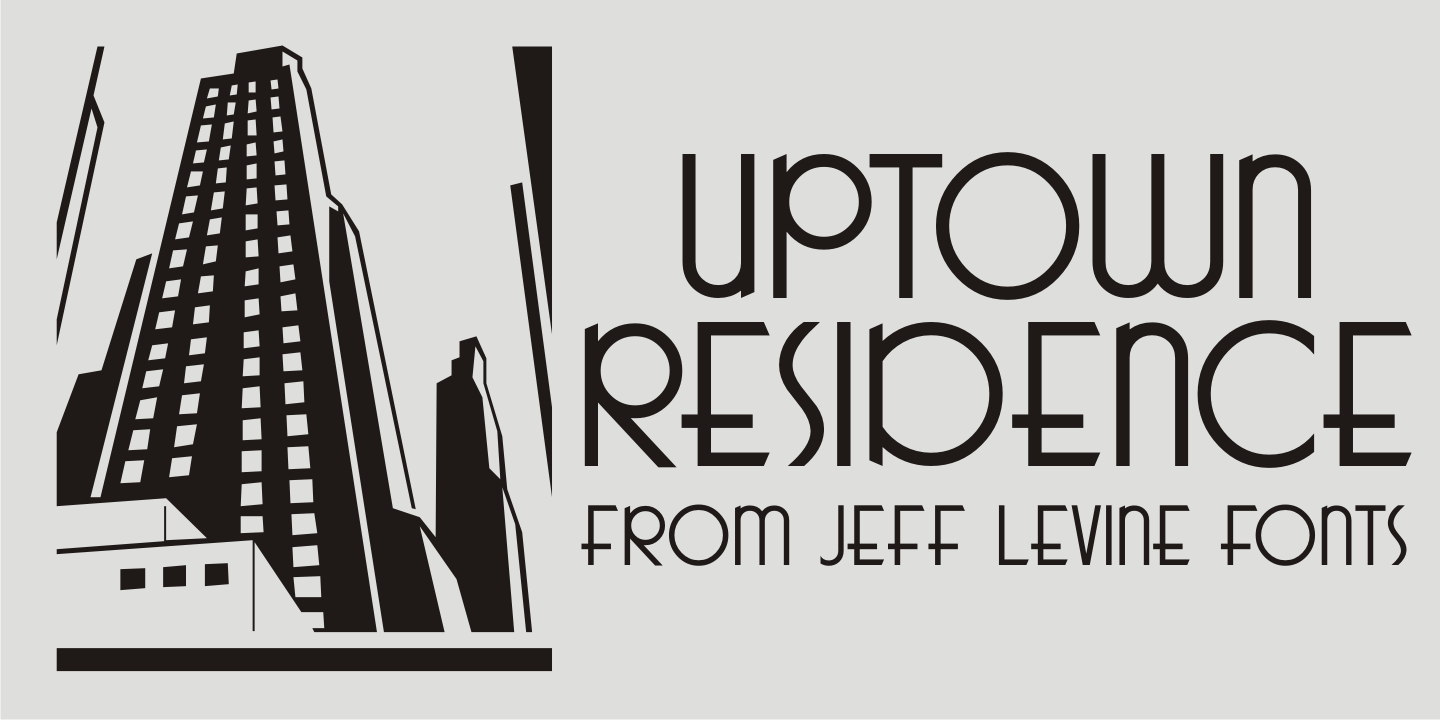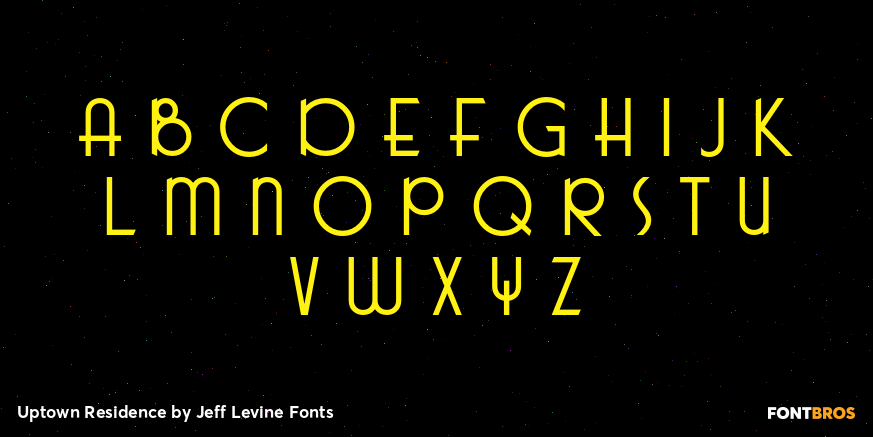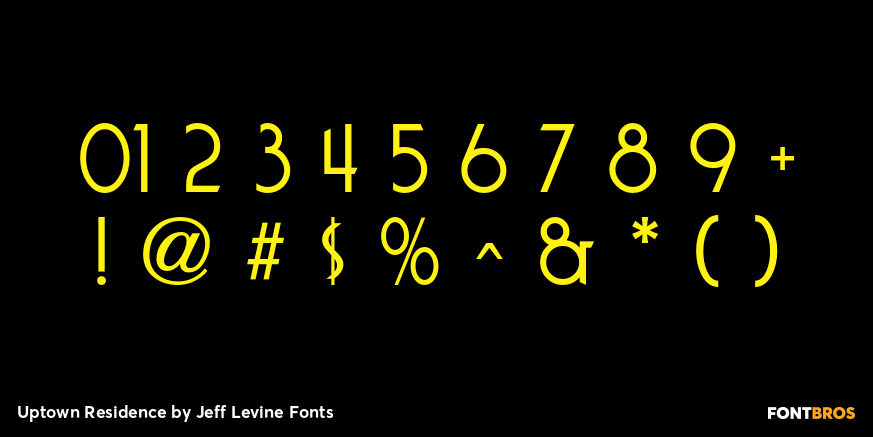
Uptown Residence
The title card for the 1940 film 'Too Many Husbands' served as the inspiration for Uptown Residence JNL.
Uptown Residence by Jeff Levine Fonts